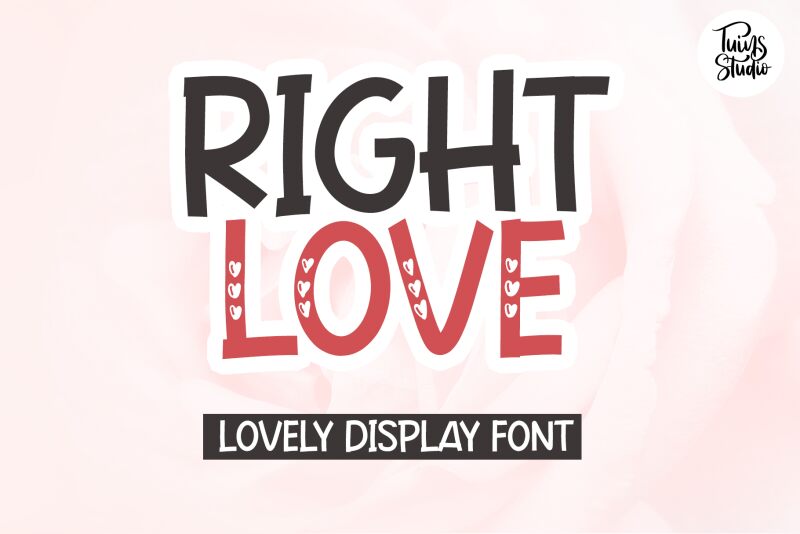
Right Love font by Annisa Afni of Tuinsstudio is a decorative, Valentine-style font that captures attention with its quirky nature. It features a modern aesthetic with hearts and other design elements in casual hand-drawn style.
Explore it as your go-to typeface for headings, poster designs, social media posts, book covers, product packaging, magazines, branding efforts, T-shirt printing and more.